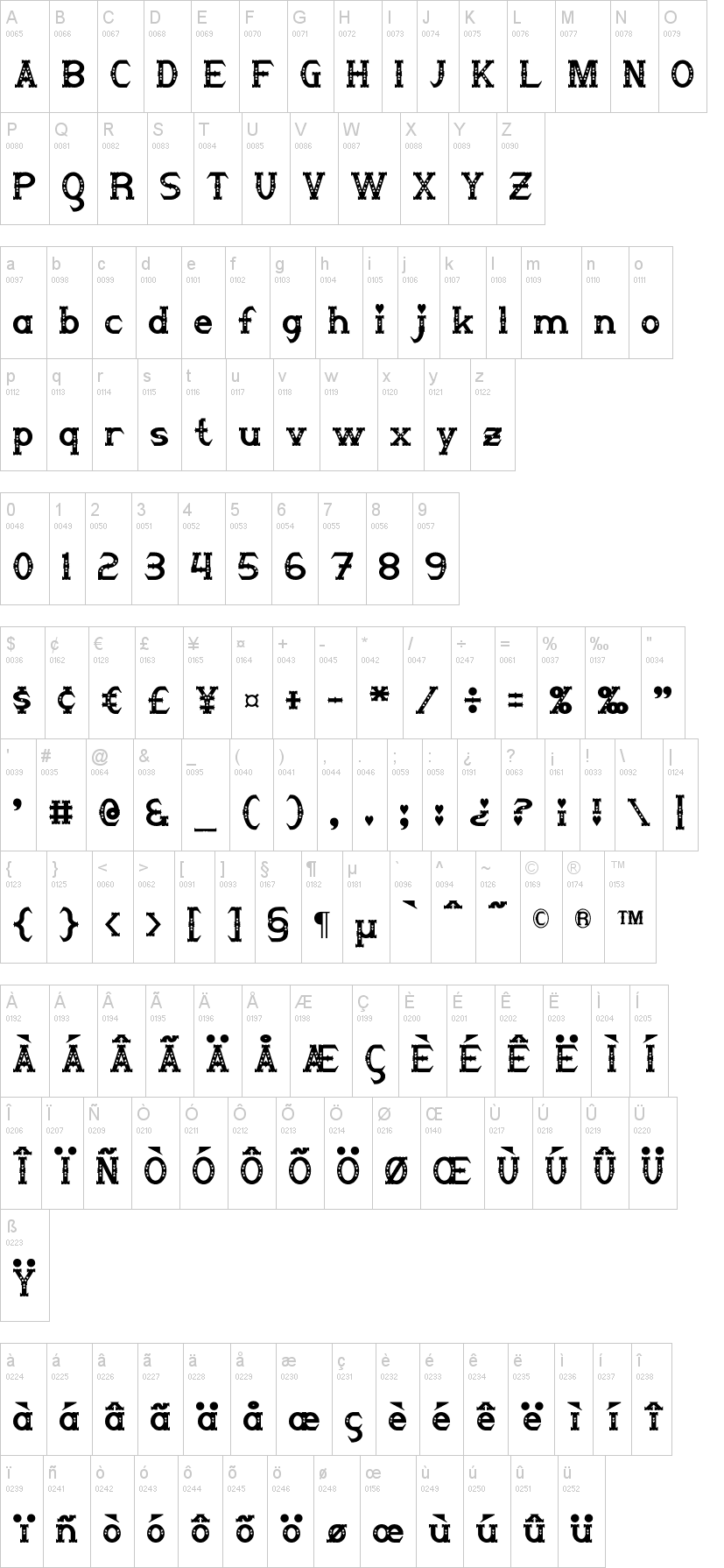
Steampuff Italic.otfNote of the authorA 'challenge' font, basically a western-motif with little hearts adding deco touches to the stalks and dots. Includes accent marks, Euro, and full upper and lower-case alphabet.